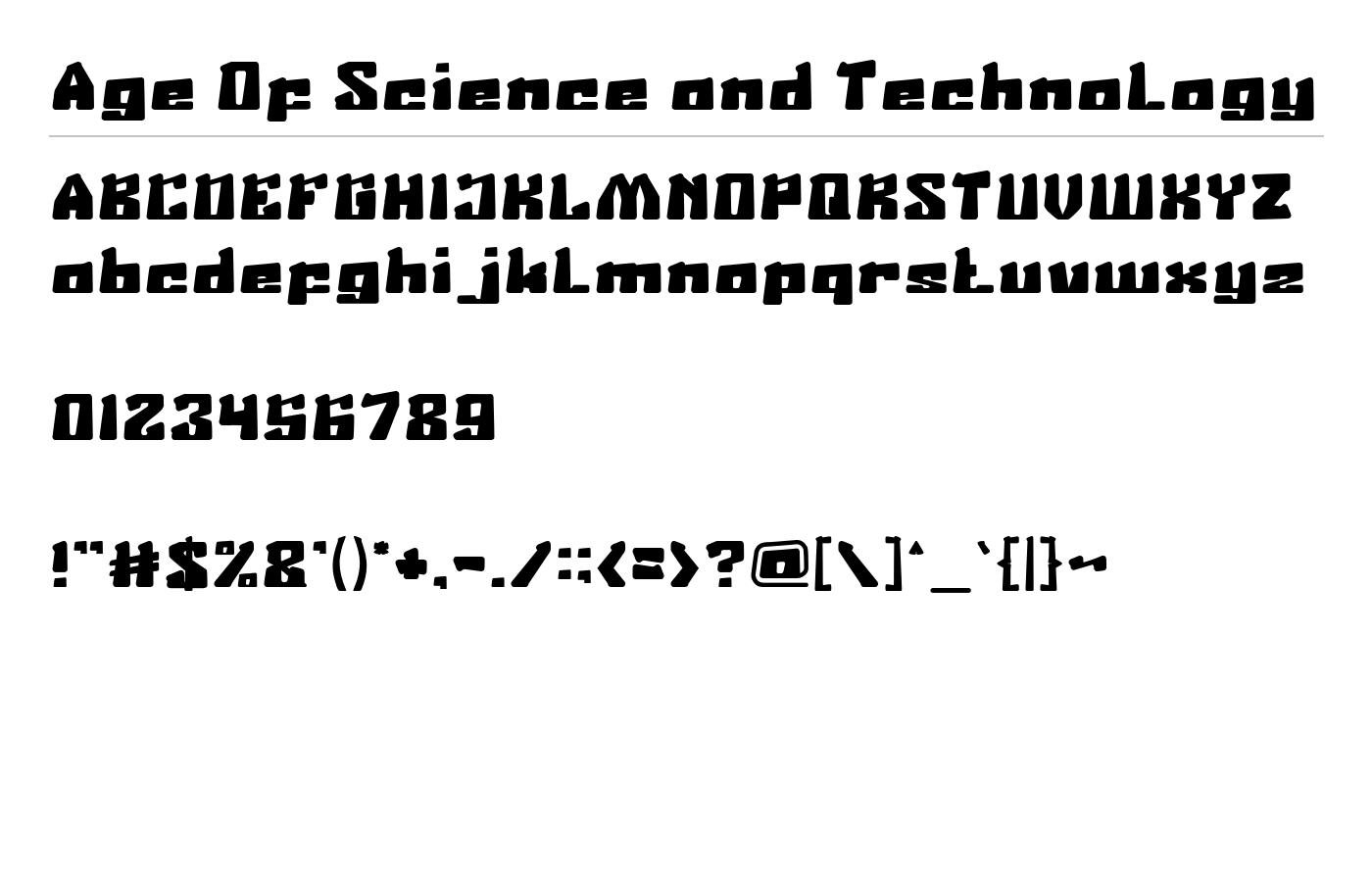
Age Of Science and Technology is a bold, geometric sans serif font with a futuristic and tech-inspired vibe. Its strong, irregular shapes and slightly condensed letterforms give it a dynamic, unconventional look perfect for eye-catching headlines or branding in science, technology, and innovation fields. This font works best where a modern, edgy personality is needed to stand out and communicate forward-thinking ideas.
Age Of Science and Technology Font
About Age Of Science and Technology Font